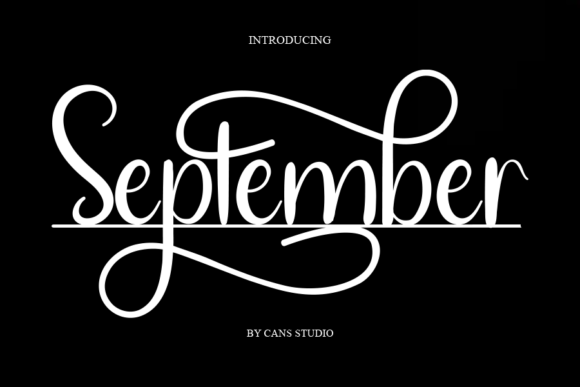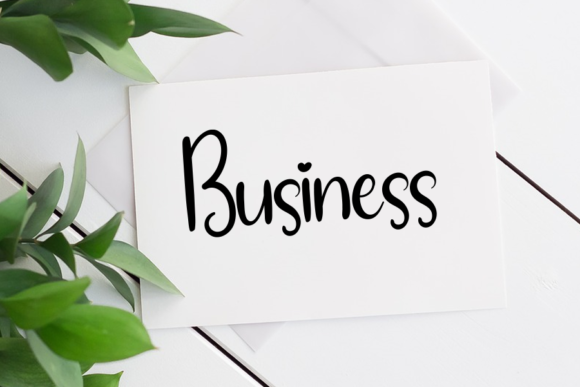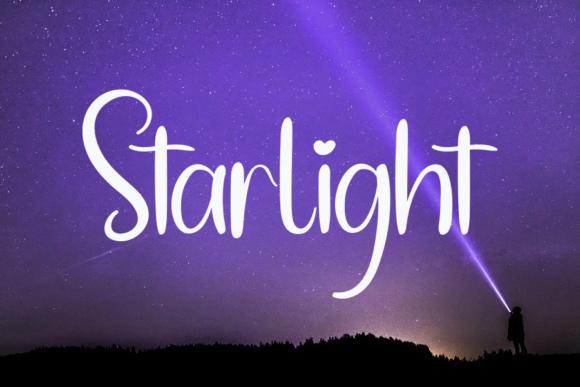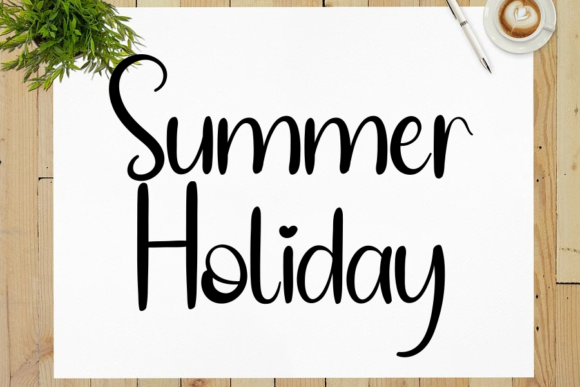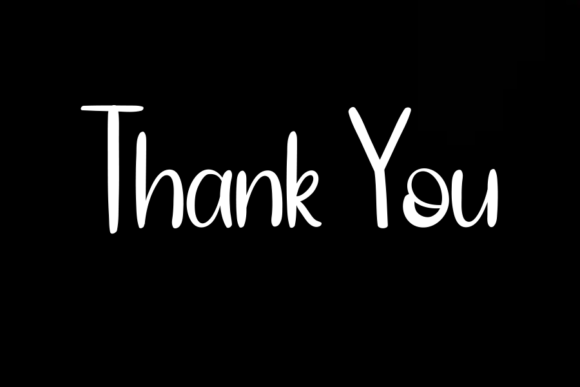
September is a simple, quirky, and adaptable handwritten font. You can successfully add this elegant font on wedding invitations, business cards, greetings cards, social media posts, wall art, and more.